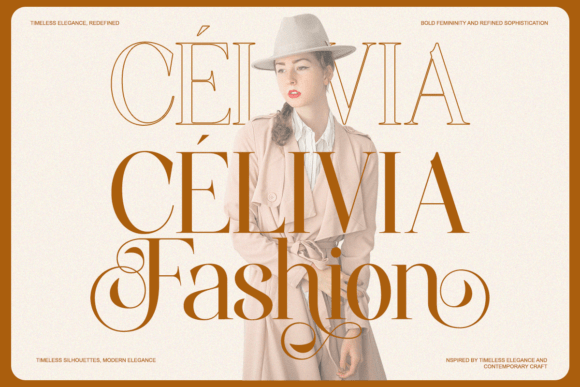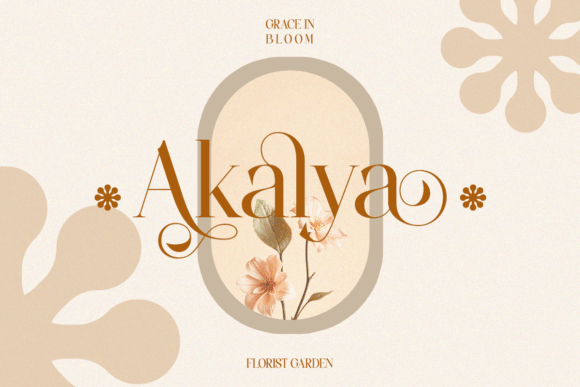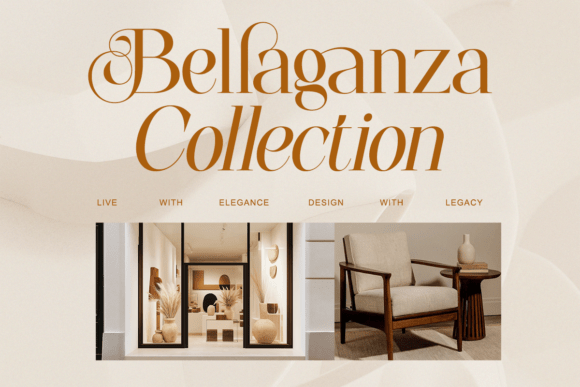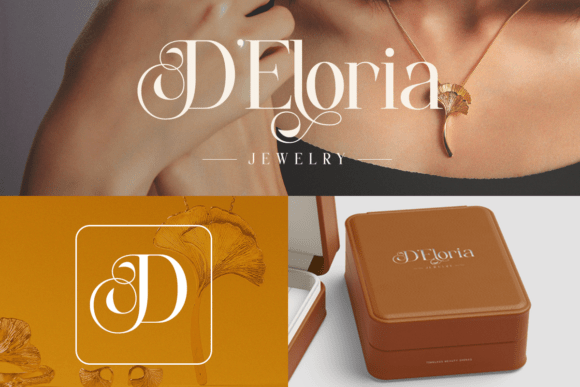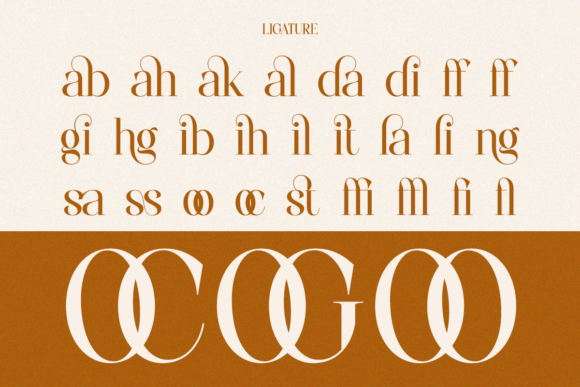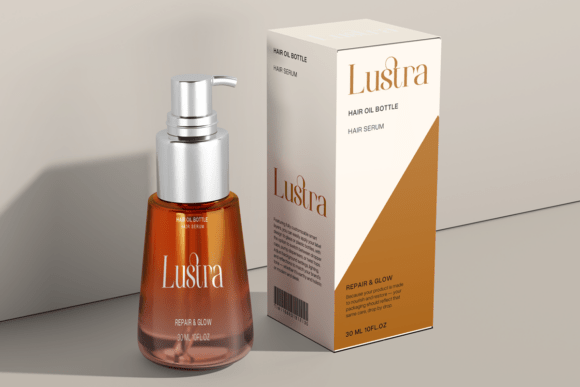
Introducing Coalissa Font: Elevate Your Design with Modern Elegance
In the world of typography, fonts play a crucial role in conveying the tone and aesthetic of a brand. For designers and crafters seeking a modern, elegant, and refined look, Coalissa Font is an exceptional choice. This stunning serif font boasts smooth curves and a minimal aesthetic, making it perfect for a variety of applications, from beauty branding to fashion posters.
What Makes Coalissa Font Stand Out?
Coalissa Font is a masterclass in typographic design, offering a unique blend of modern sophistication and timeless elegance. Its clean forms and subtle refinement make every layout look professionally polished, ensuring that your designs stand out in a crowded market. Whether you’re working on beauty branding, skincare labels, wellness packaging, magazine titles, fashion posters, or boutique logos, Coalissa Font is the perfect companion.
Perfect for Beauty and Wellness Branding
The beauty and wellness industries demand a high level of sophistication and elegance in their branding. Coalissa Font delivers on this requirement, providing a refined and luxurious look that elevates any brand. From skincare labels to wellness packaging, this font ensures that your products stand out on crowded shelves and convey a sense of high-end quality.
Elevate Your Magazine Titles and Fashion Posters
Coalissa Font is also an excellent choice for magazine titles and fashion posters. Its modern elegance and refined aesthetic make it perfect for capturing the attention of readers and fashion enthusiasts alike. Whether you’re designing a title page for a fashion magazine or creating a poster for a high-end fashion brand, Coalissa Font is sure to impress.
Boutique Logos and Beyond
In addition to its applications in beauty branding, magazine titles, and fashion posters, Coalissa Font is also well-suited for boutique logos and other design projects. Its clean forms and subtle elegance make it an excellent choice for any brand seeking to convey a sense of sophistication and refinement.
Key Features of Coalissa Font
- Modern Elegant Serif: Coalissa Font boasts a sleek, modern design with smooth curves and refined lines.
- Smooth Curves: The font’s smooth curves add a touch of sophistication and elegance to any design.
- Refined Minimal Aesthetic: Coalissa Font’s minimal aesthetic ensures that your designs look polished and professional.
- Clean Forms: The font’s clean forms make it easy to read and understand, even at small sizes.
- Subtle Elegance: Coalissa Font’s subtle elegance ensures that your designs convey a sense of refinement and luxury.
Why Choose Coalissa Font?
With so many fonts available, why choose Coalissa Font? The answer lies in its versatility, elegance, and timeless appeal. Whether you’re a designer or crafter, Coalissa Font offers a unique combination of modern sophistication and classic refinement, making it an excellent addition to your typographic toolkit.
In conclusion, Coalissa Font is an exceptional choice for designers and crafters seeking a modern, elegant, and refined font for their projects. Its smooth curves, clean forms, and subtle elegance make it perfect for a variety of applications, from beauty branding to fashion posters. With Coalissa Font, you can elevate your designs and convey a sense of sophistication and luxury that will leave a lasting impression on your audience.
Whether you’re working on a high-end fashion brand, a wellness packaging project, or a simple boutique logo, Coalissa Font is the perfect companion. Its timeless appeal and versatility ensure that your designs will look professionally polished and refined, making it an excellent investment for any designer or crafter.